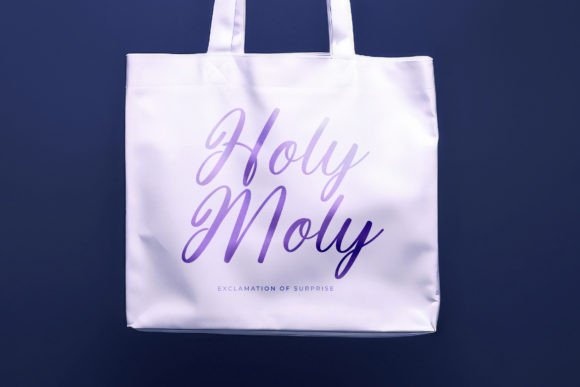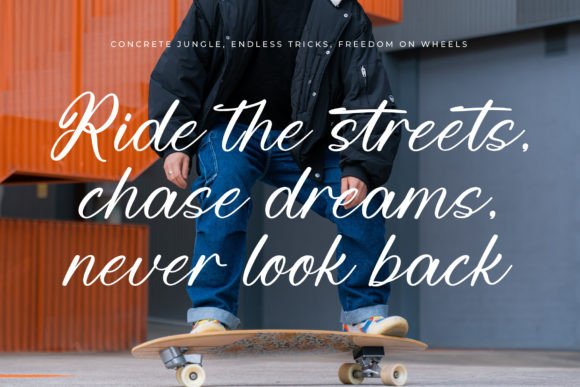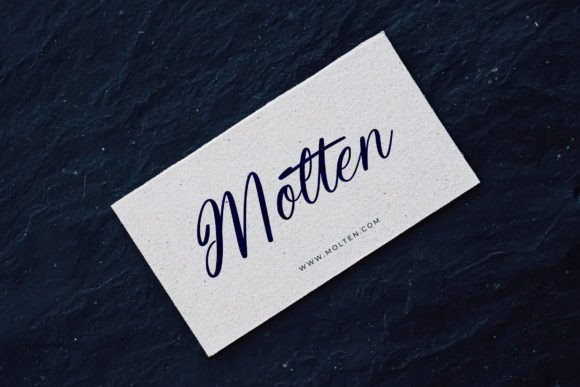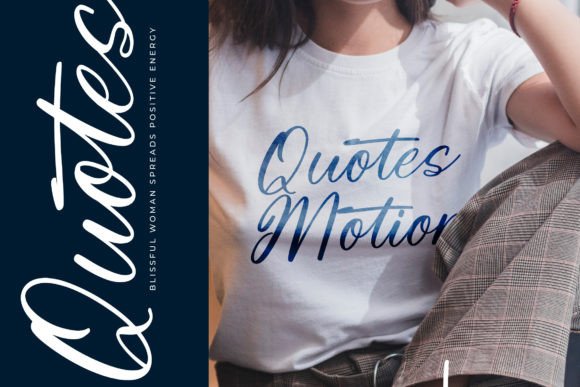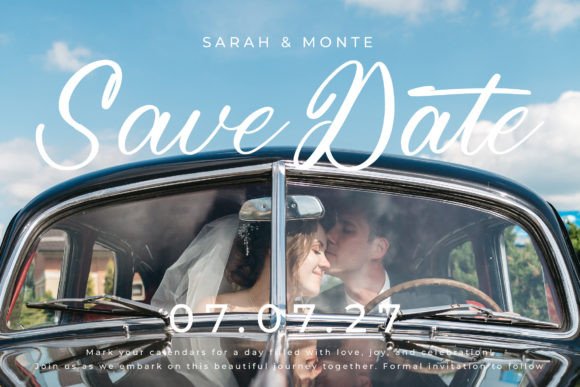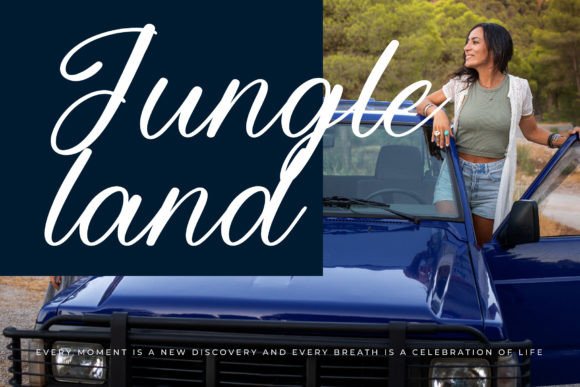
Unleash the Luxury in Your Designs
Have you ever been inspired by the elegance of a beautifully scripted logo or the charm of a handwritten note? I know I have. There’s something special about the way script fonts can evoke emotions and add a touch of sophistication to any design. For designers, finding the perfect script font can be a game-changer – it’s the difference between a good design and a great one.
Enter Bounty Motion Font, a Luxury Script font from Letterena that’s perfect for designers looking to add a touch of luxury to their projects. Whether it’s a logo, branding project, or product packaging, Bounty Motion Font is the perfect choice. Its versatility and beauty make it a valuable addition to any designer’s toolkit.
Bounty Motion Font Key Features
- Font Family: Bounty Motion, with a total of 12 styles (from Thin to Black)
- Unique Characteristic: Dynamic motion effects, allowing the font to change and move in a fluid motion, perfect for use in animations and videos
Bounty Motion Font Review
I recently had the chance to work with the Bounty Motion Font, and I must say, it’s a mixed bag. Here’s my honest review.
- Energy and Movement**: The Bounty Motion Font truly captures the feeling of energy and movement, making it perfect for projects that need a dynamic touch.
- Customizability**: The font offers a range of options for customization, from size and color to animation speed and direction.
- Readability**: At times, the font can be difficult to read, especially when used for large blocks of text.
- Overuse**: The font’s unique style can become overwhelming if overused, leading to visual fatigue.
- Limited Character Set**: The font’s character set is limited, which can make it difficult to use for languages that require a wide range of characters.
The Bounty Motion Font is a great choice for projects that require a dynamic and energetic feel. However, it’s essential to use it judiciously and balance it with other fonts to avoid visual overload. With its customizability and compatibility, it’s a solid addition to any designer’s toolkit.
Bounty Motion Font is ideal for use in:
– Infographics
– Presentations
– Digital marketing materials
– Any project where a dynamic, modern font is needed.
To get the most out of Bounty Motion Font, try:
– Combining it with bold or italic styles for added emphasis.
– Using it in conjunction with other dynamic fonts for a unique look.
– Experimenting with different font sizes and colors to create visual interest.
Alternatives to Bounty Motion Font
Pacifico is a beautiful script font that works well for creating a sense of elegance and sophistication. It’s ideal for use in logos, branding materials, and other design elements where a touch of luxury is needed. Compared to Bounty Motion Font, Pacifico has a more refined and delicate feel, making it a great choice for designs that require a softer, more feminine touch.
Great Vibes is a modern script font that’s perfect for creating a sense of energy and excitement. It’s ideal for use in designs where a dynamic and playful feel is needed, such as in social media graphics, event promotions, and other applications where a sense of urgency is key. Compared to Bounty Motion Font, Great Vibes has a more vibrant and expressive feel, making it a great choice for designs that require a lot of movement and action.